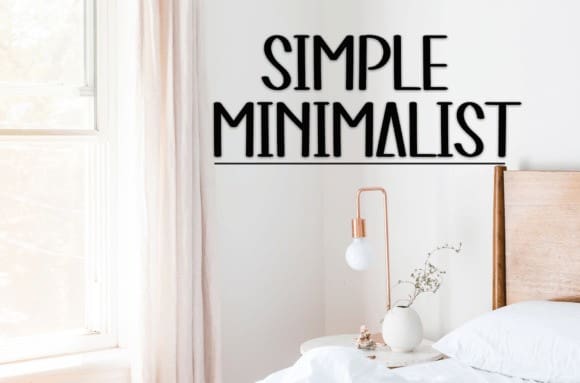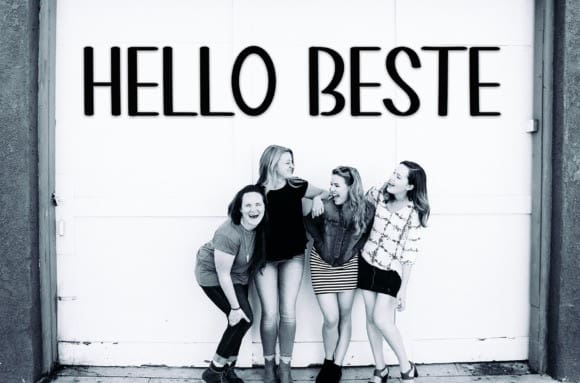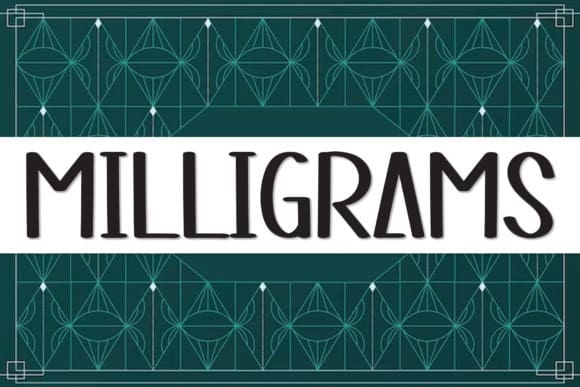
Milligrams Cute Font
Milligrams Cute Font is a sweet and friendly handwritten font. Fresh and neat, this font is ideal for writing wedding invitations, cards, or any other design that might need a fun touch!